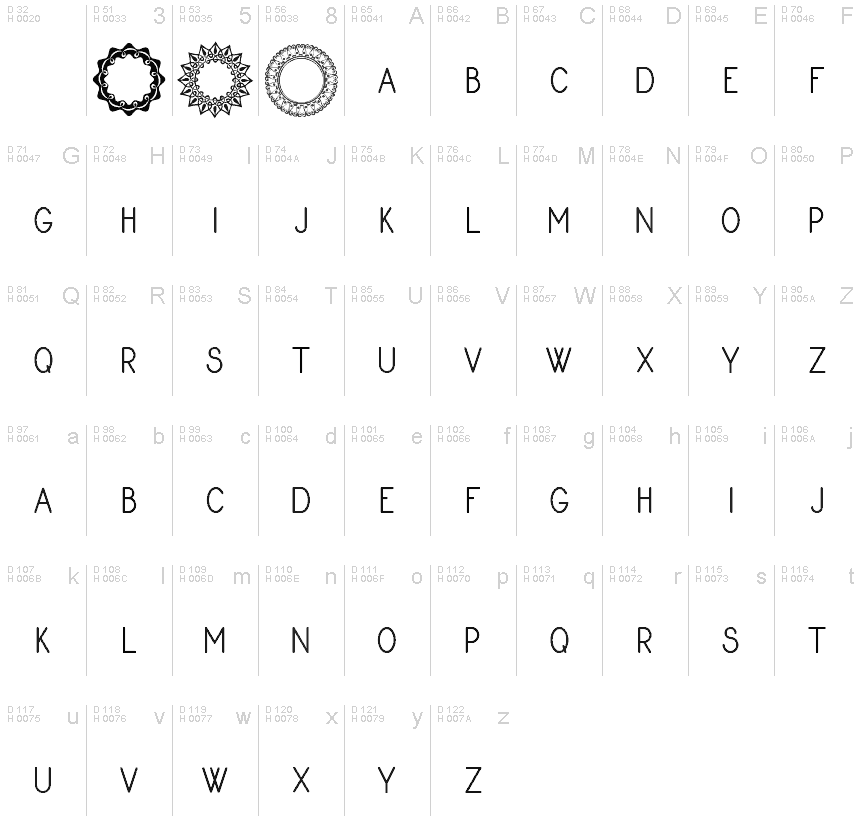
Monogram Framer Demo
Monogram Framer is a striking display font that exudes a sense of refined elegance and craftsmanship. Designed by Digital Typeface Studio, this decorative typeface features intricate monogram-inspired letterforms that seamlessly blend graceful curves and angular accents.
The font's unique character lends itself beautifully to a variety of design applications, from sophisticated editorial layouts to captivating branding and packaging.
Monogram Framer's versatility allows it to shine in both digital and print mediums, making it a versatile choice for designers seeking to elevate their projects with a touch of timeless sophistication.
1. Type number 3, 5 or 8 to get the circle frame (Demo has just 3 circles)
2. Type your letter you which will be placed in the center automatically.
Which includes 10 circle frames and capitals A-Z, plus, circle clipart set as a bonus.